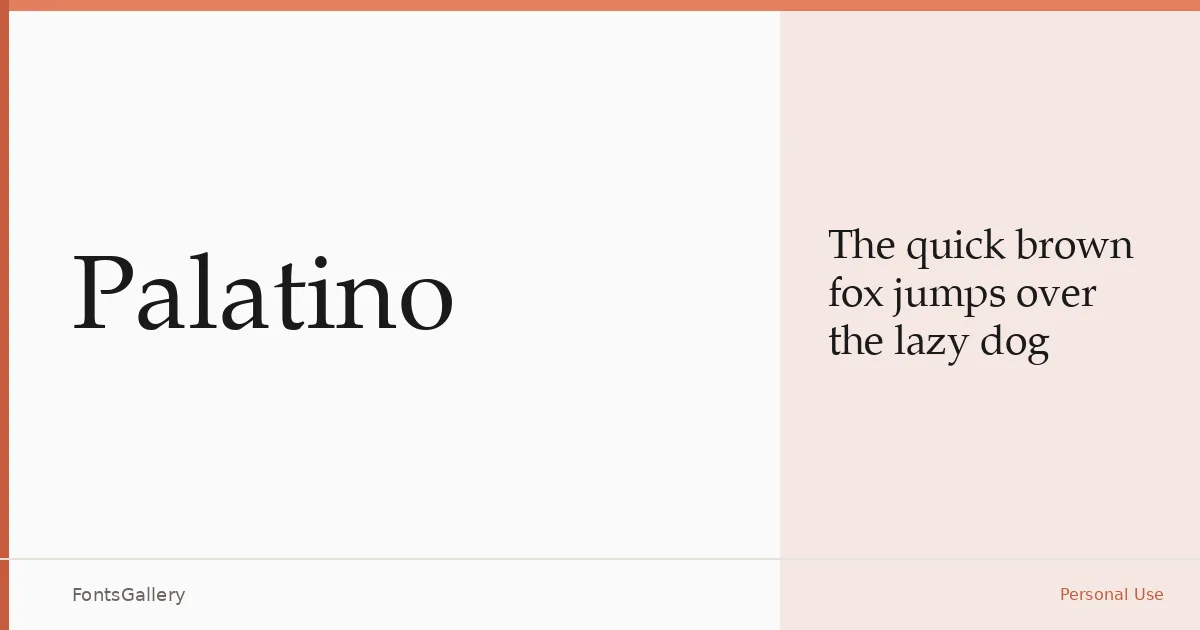
About Palatino Font
There is a reason this roman has remained a reference point in editorial and institutional typography for decades. The letterforms carry genuine calligraphic warmth — bracketed serifs with a slight stress that recalls the broad-nib pen without ever feeling nostalgic or precious. This family is available as a single cut, Palatino Roman Regular, in TTF format, held under a copyright dating to the Hewlett-Packard era of the 1990s.
It sits squarely in the classic serif tradition — elegant without being fussy, professional without being cold. The proportions are open and the stroke contrast moderate, which means it reads well at text sizes and holds its composure when set large on a cover or certificate. With only the one Roman style in this release, it functions as a steady, authoritative text face rather than a weight-range workhorse.
The face earns its place on book covers, magazine layouts, presentation decks, and formal certificates — anywhere a vintage-inflected classicism is an asset rather than a costume. For Latin-language copy it covers the expected range cleanly. Pair it with Helvetica or Asap when you need a clean grotesque contrast, with Josefin Sans for a more geometric counterpoint, or with the display personalities of Armelie and Kactigona when the context calls for something more decorative alongside the roman text.